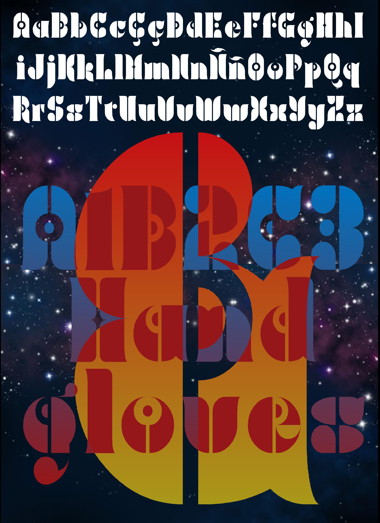
Using (only a bit) the nudge tool... I put some alternates to improve the J and T kern at the minus/major glyphs. Nice to glad you, people, I hope.
PS: The "8 ball" glyph is in the © place.
Very pretty. Seems like something four or architaraz might do. M m N n U u V v W w seem a bit blocky, but it doesn't seem like there is really any other solution. 10+fav
What a beauty!
M maybe confused with H.
PS: I'm working on H-M, but I think they can be read correctly in the most of the situations. What do you think?
Beautiful floral and lively structures - nice font : )
Elegant font with a sci-fi touch!
This is so pschedelic, very '70, brings back pleasant memories *sigh* ... 10/10 + Fav
@Aeolien: The 70's are a referent time in the Universal History. And too specially in the typographic world. I love all this kind of fonts, one by one! Much of these images keeps on my brain, I know that, and they come with my work naturally. I can't stop it, and I like it. Thanks for your words.
Ah the seventies ! I was a kid then so when i became teenager in eighties i sort of rejected this era, but subconscious has its rules that conscience can't be aware of, and when i see how my work turned with years, i can measure how much these 70s i passed as a kid heavily influenced and impacted my further developpement, mixing their tryout to open mind and senses at their max with much what end of 70s and 80s much "colder and depressive" spirit brought. This paradox is for much i think in how my work became so singular...
Thanks Elmo to keep this spirit alive, not by simply almost litterally (like many do) copying genuine works of this era, but trying and develop a personal unique way of expressing your own understanding of all this